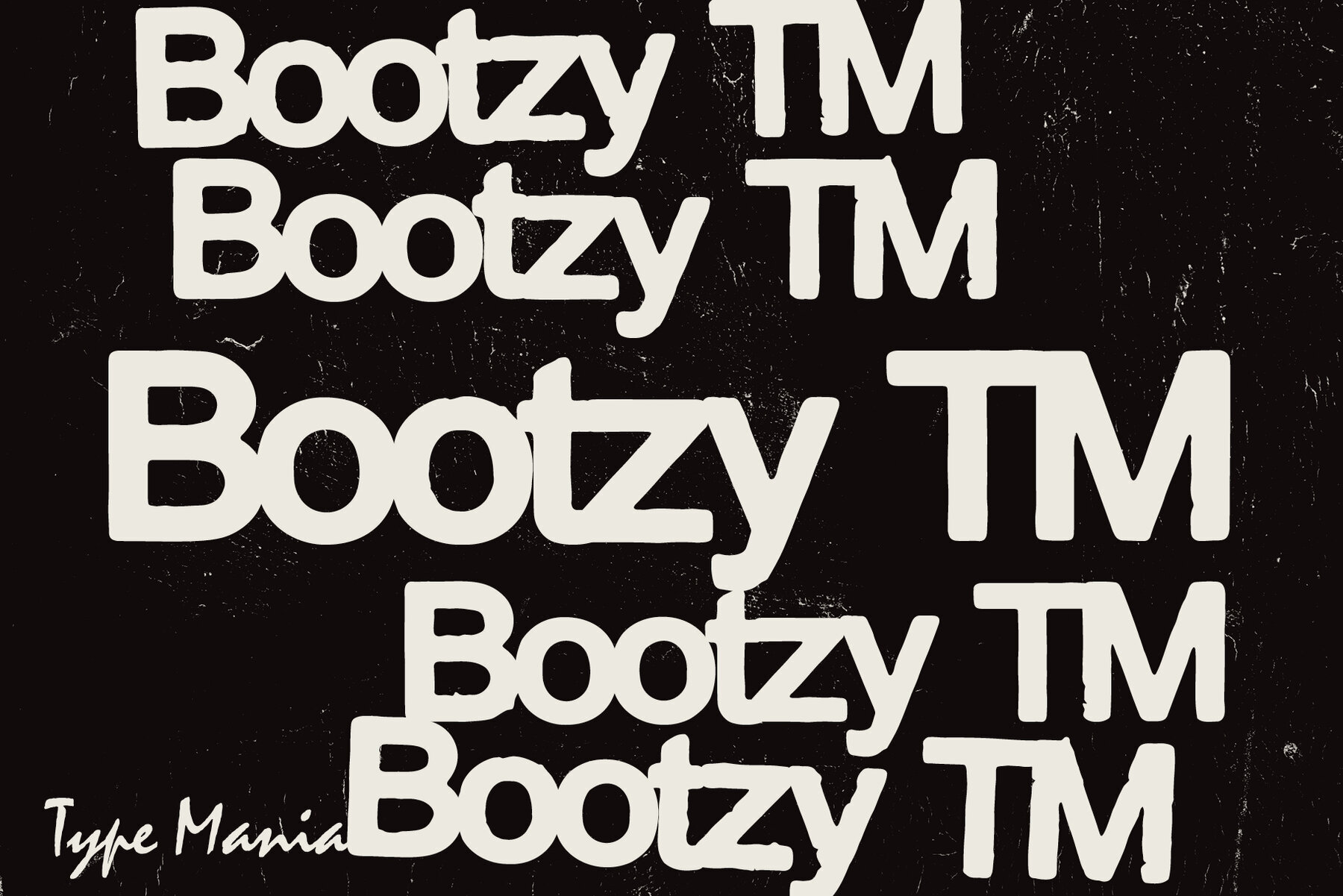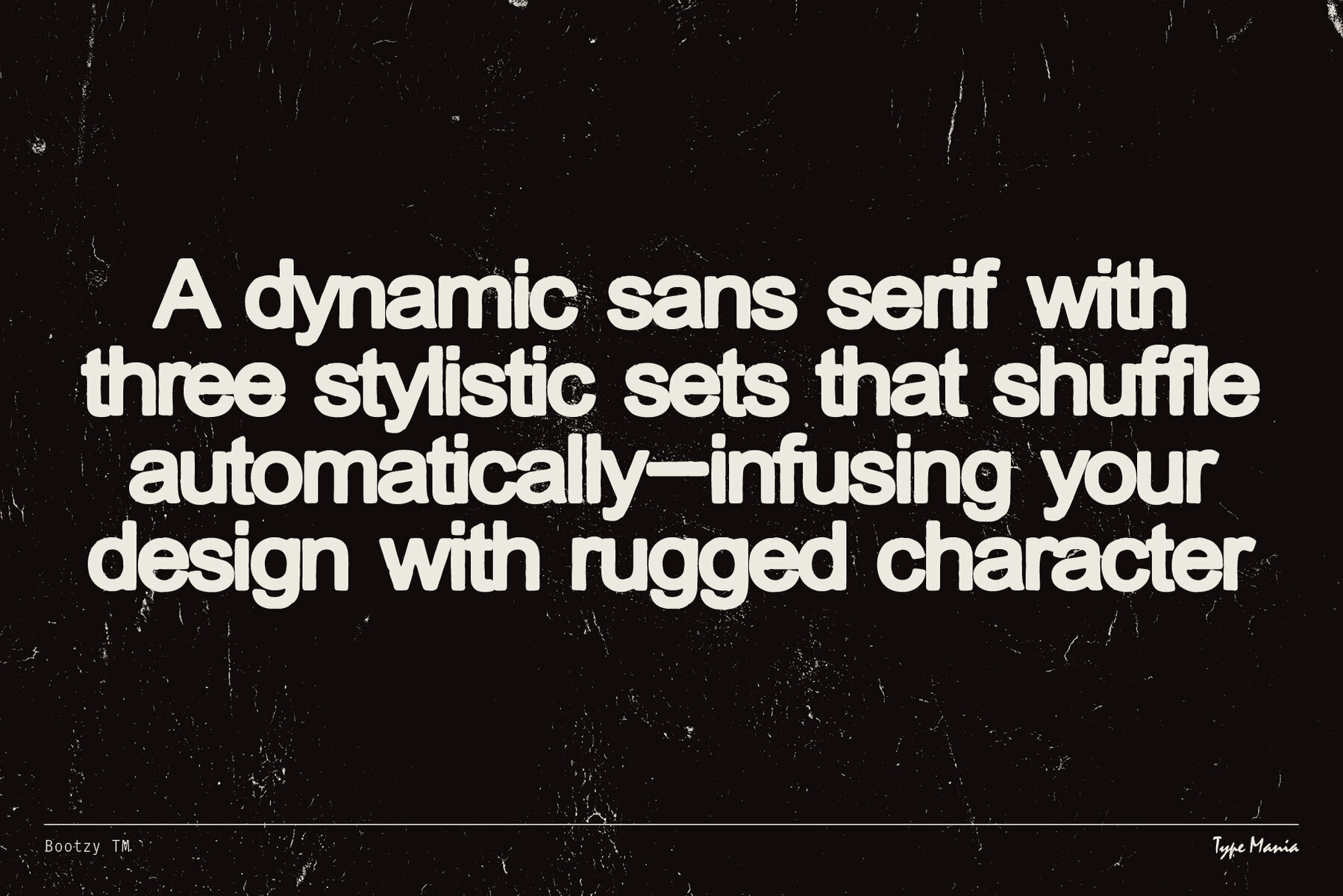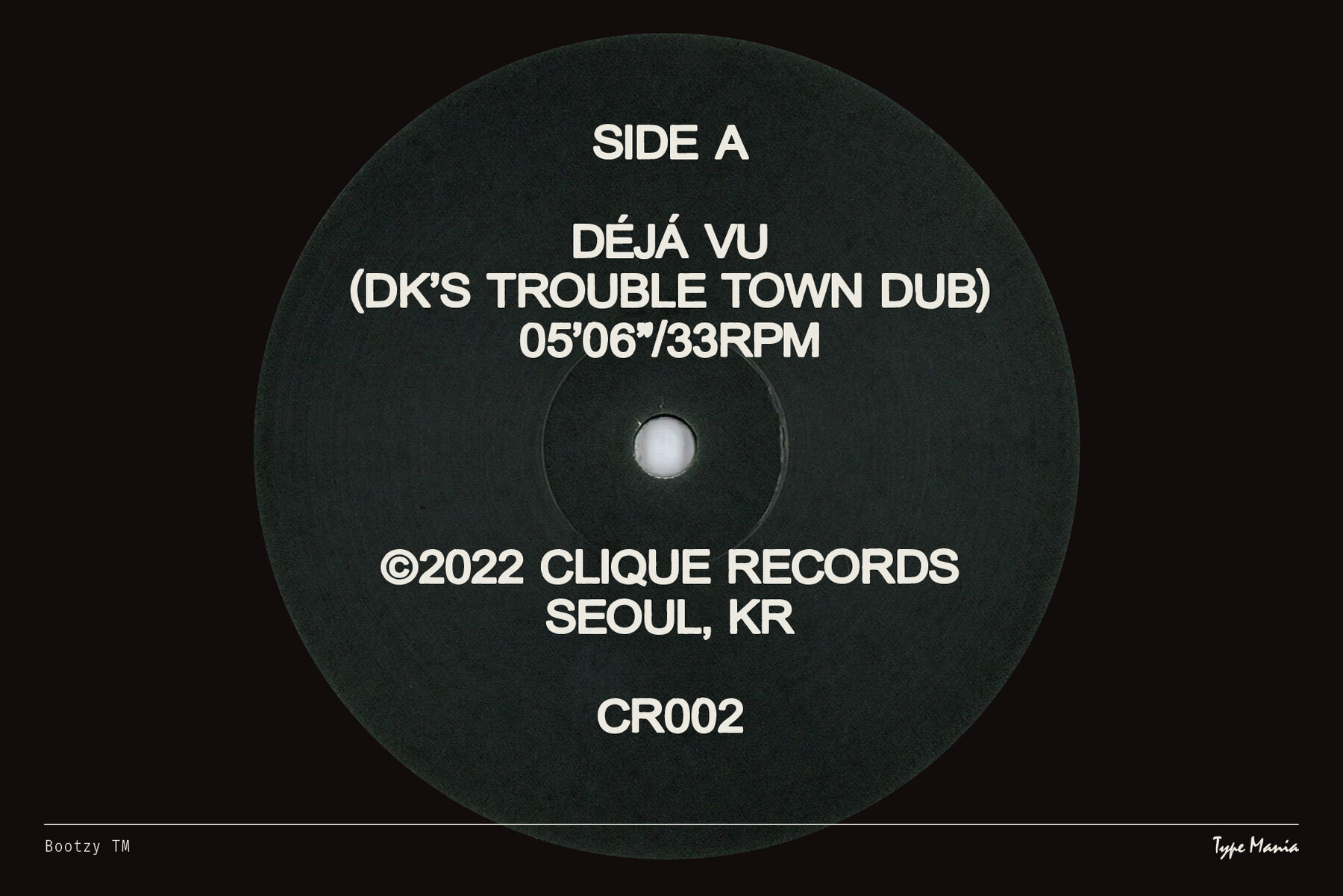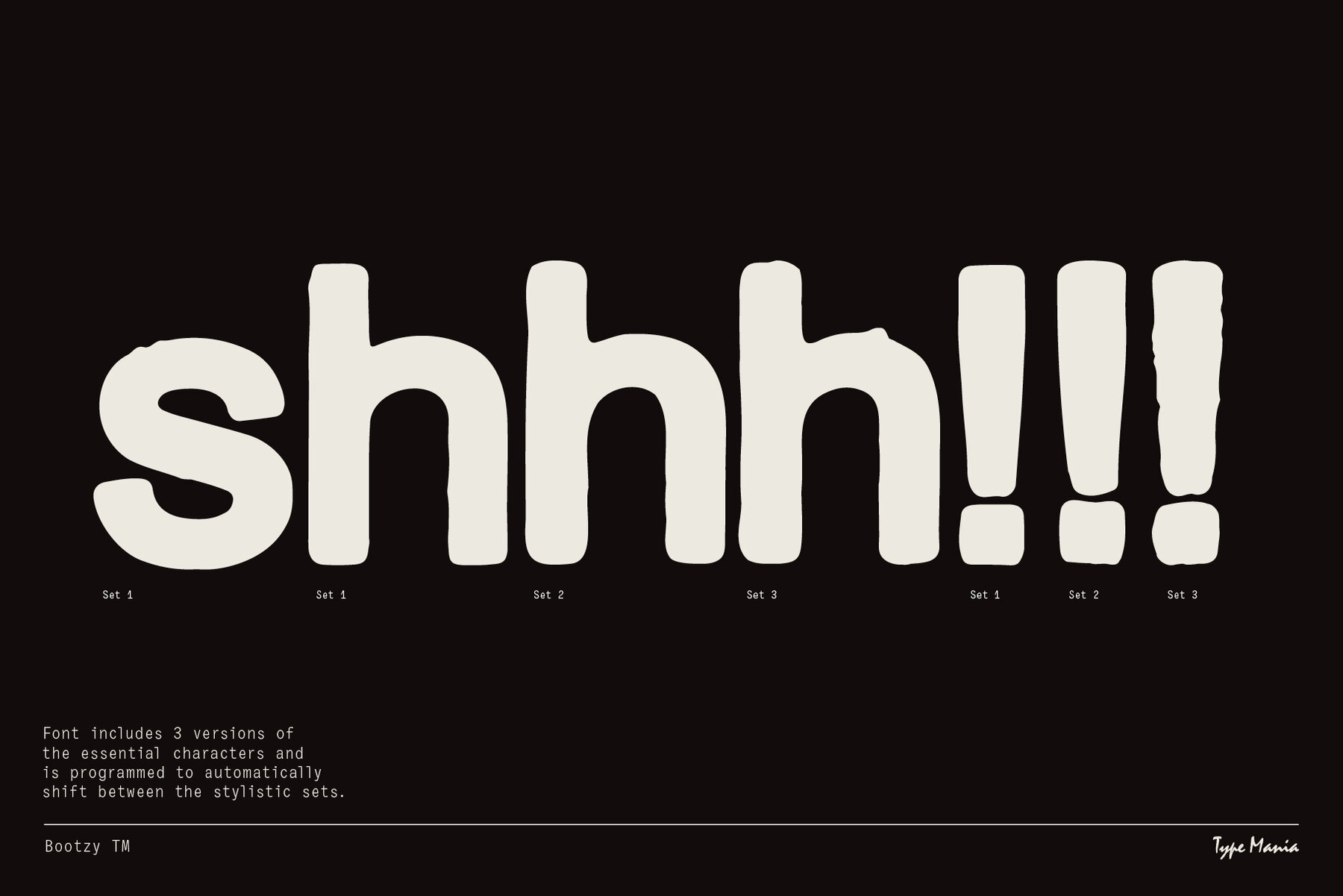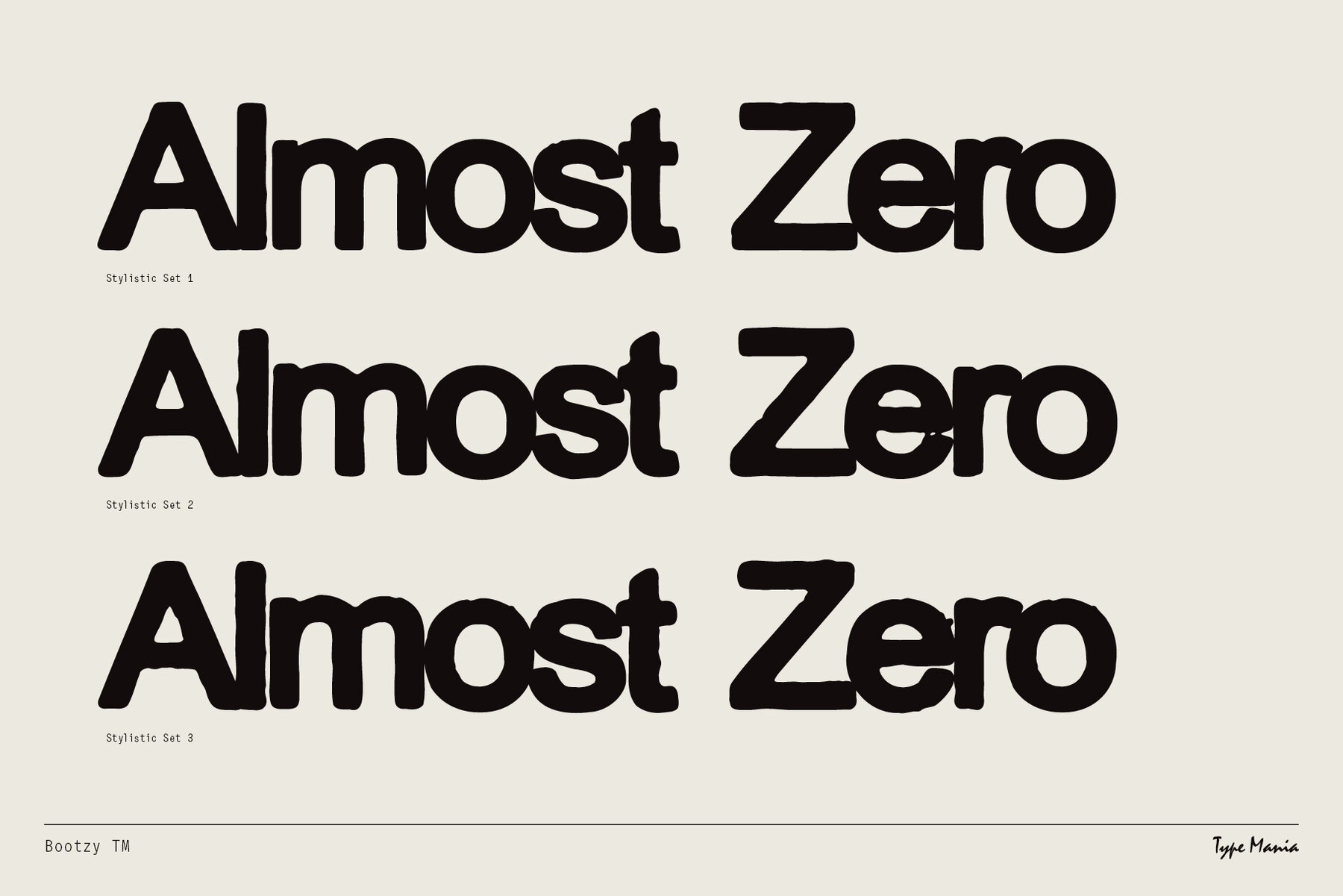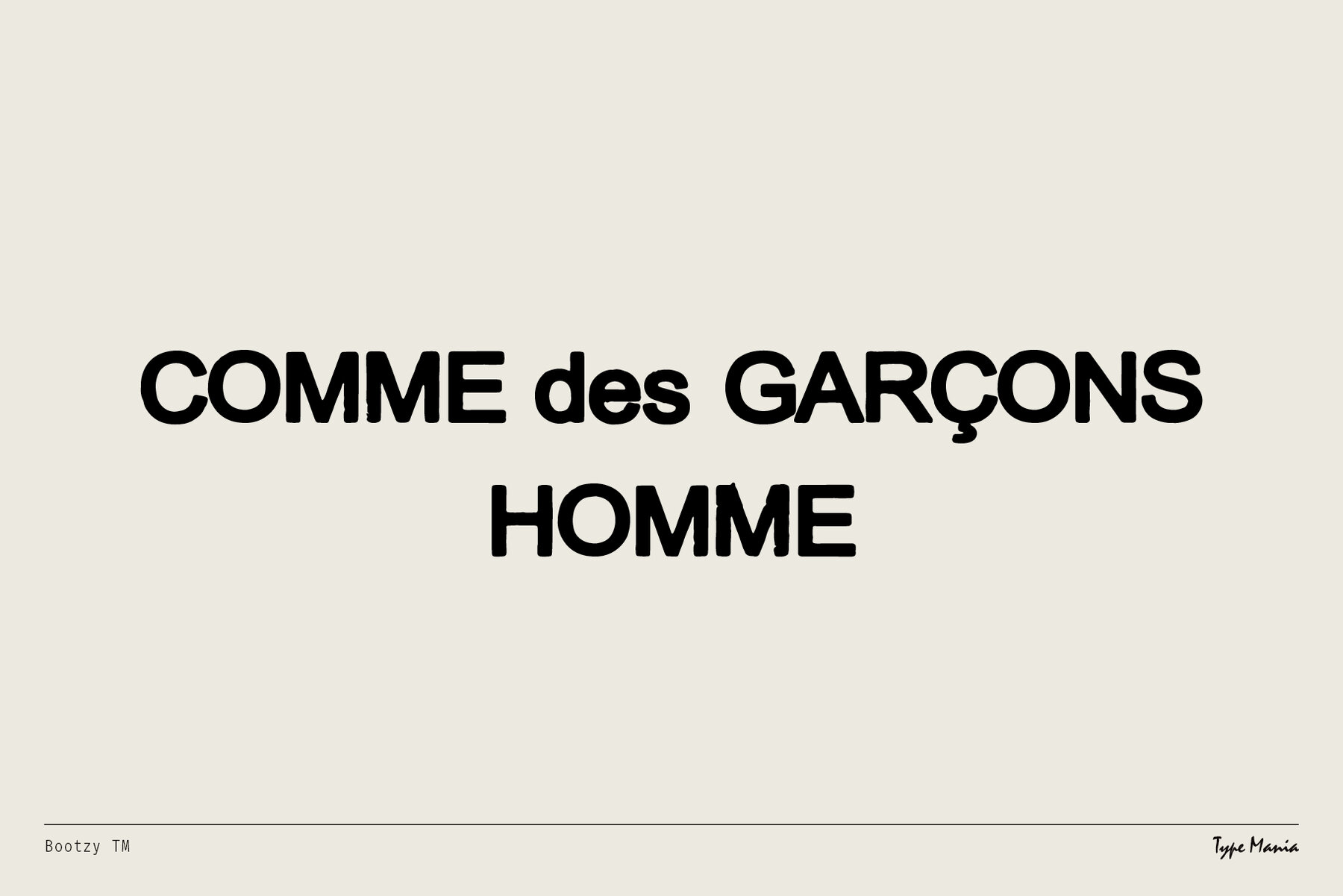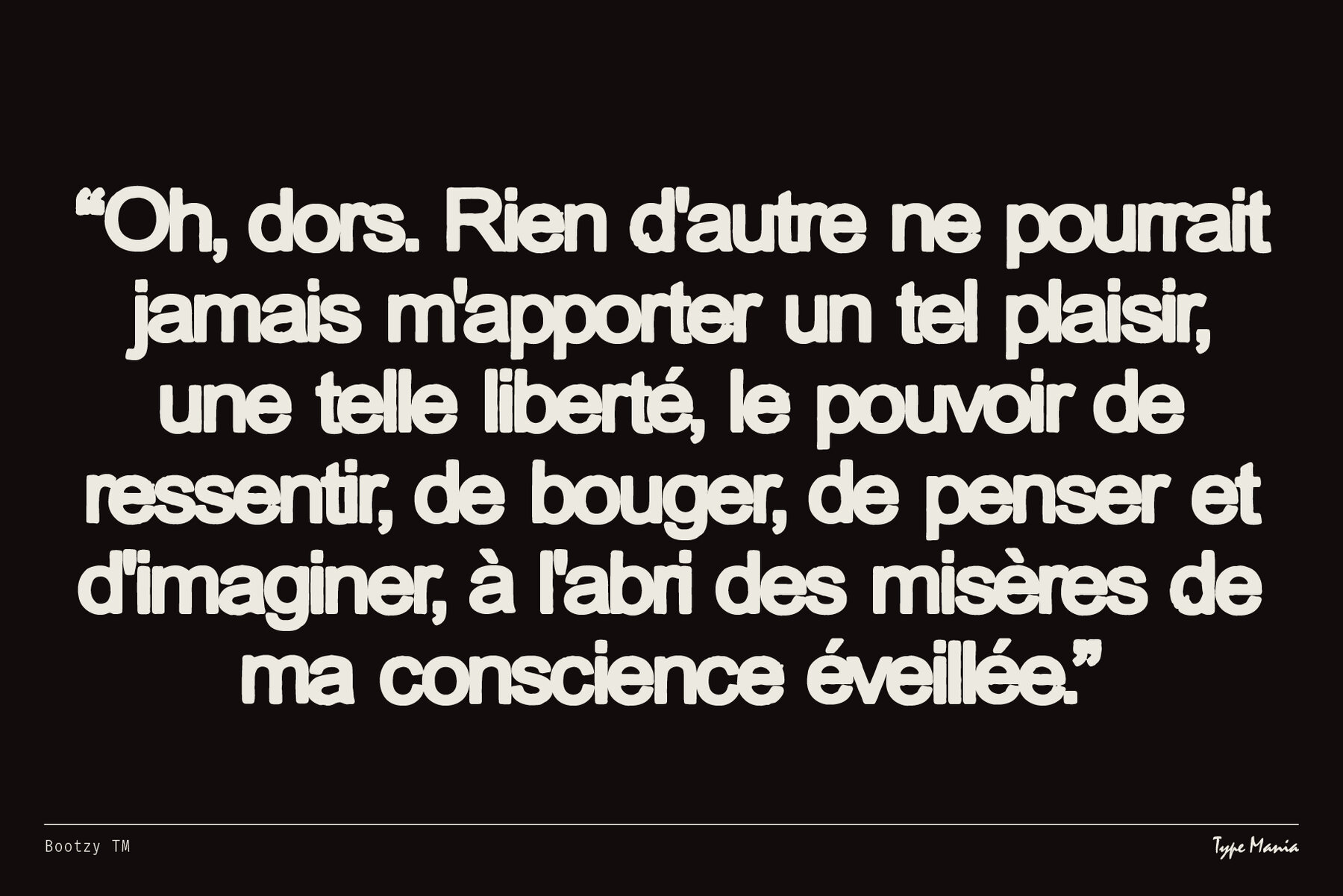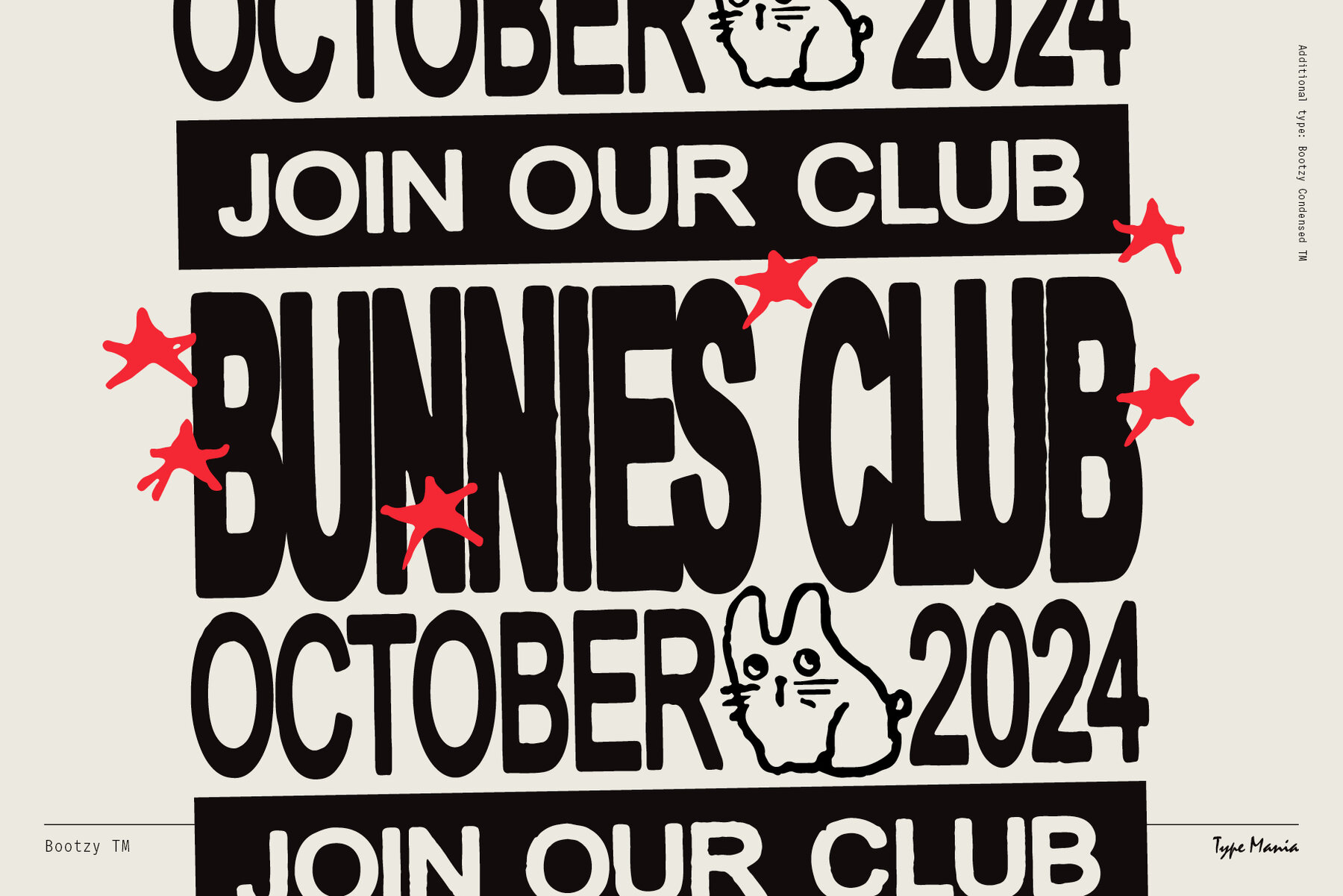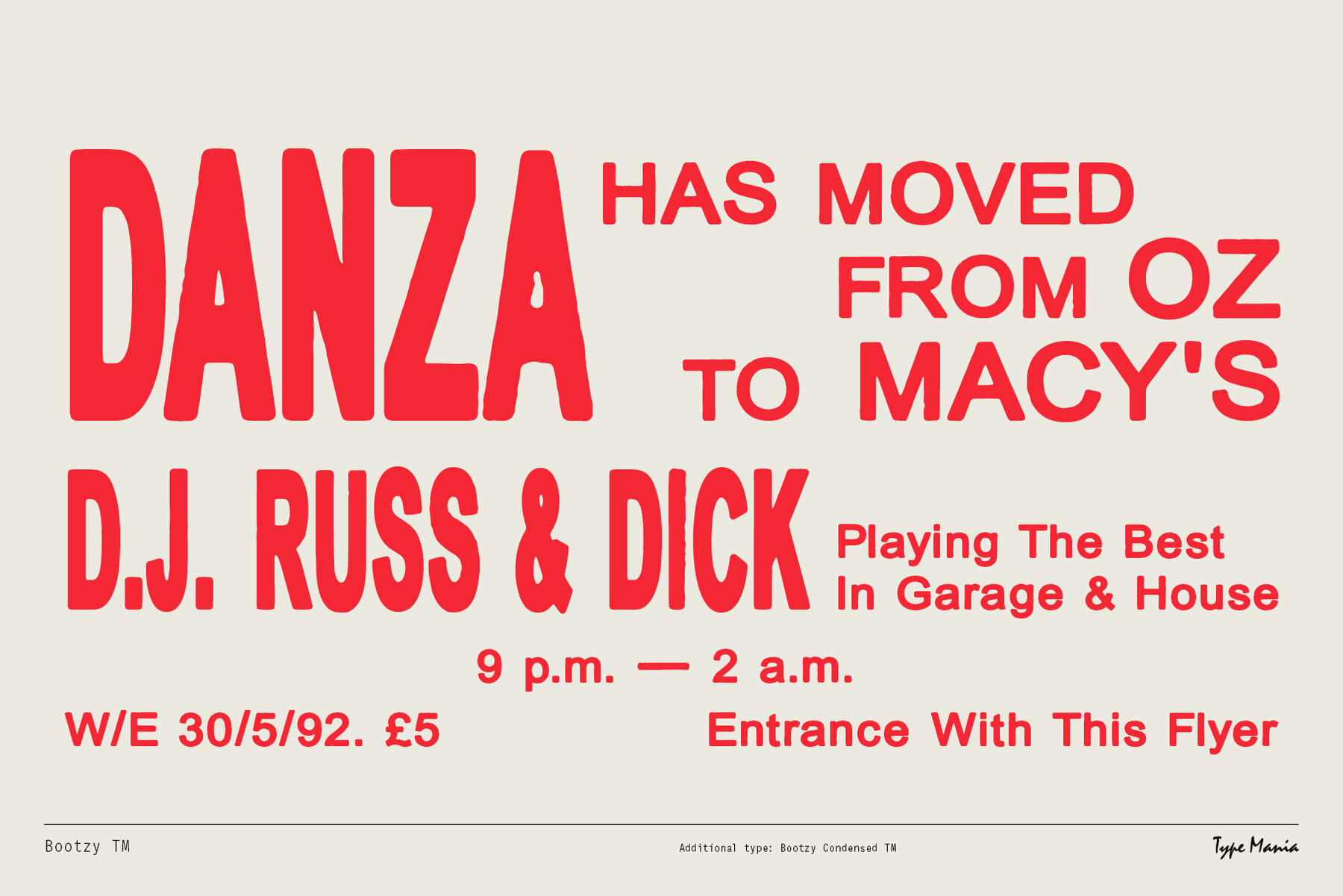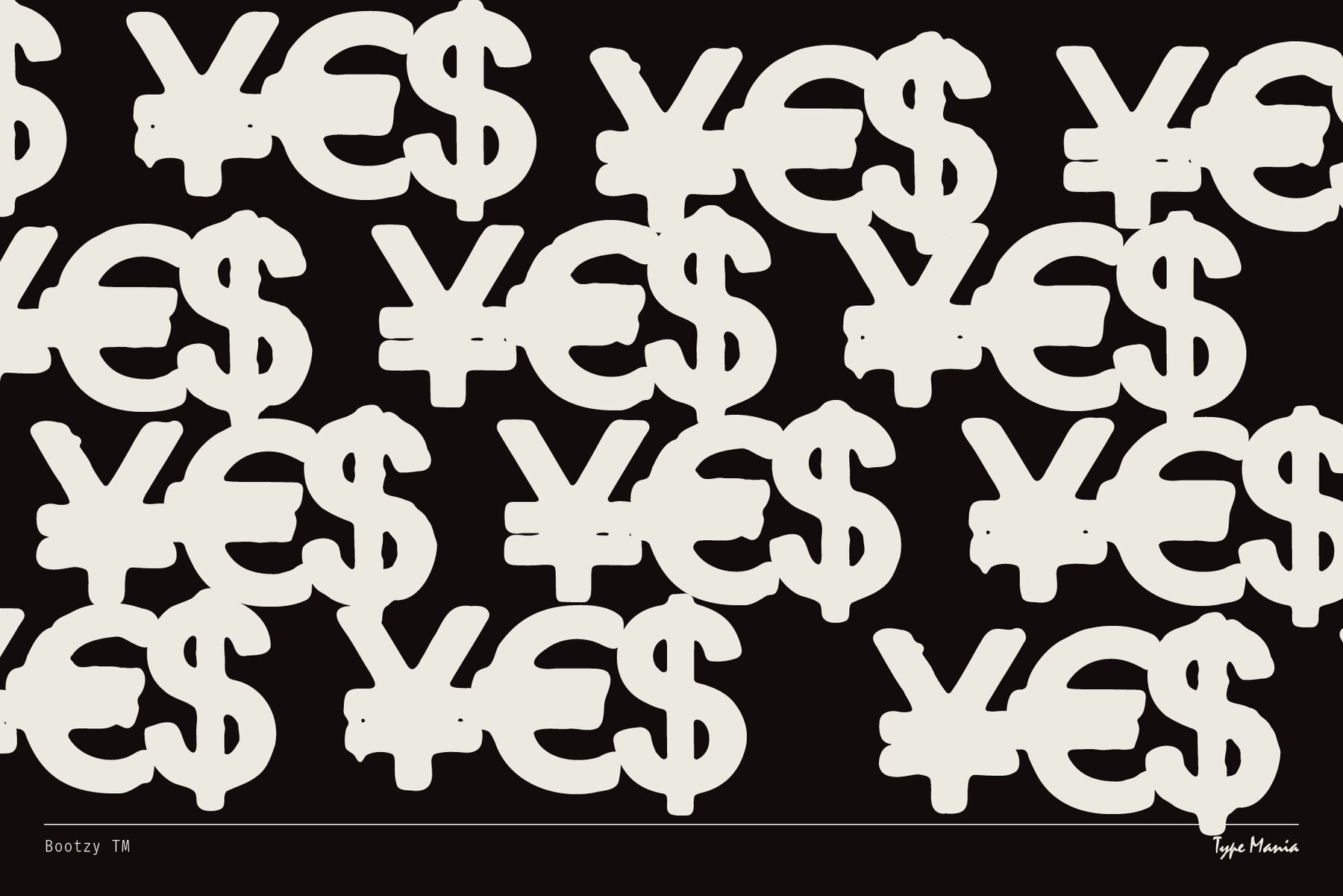
Bootzy TM Font
Bootzy TM Regular
Introducing Bootzy TM. A tough sans serif designed to elevate your flyers, album covers, t-shirt designs; what have you. With three stylistic sets, the glyphs shuffle automatically, infusing your design with character and texture. OpenType features